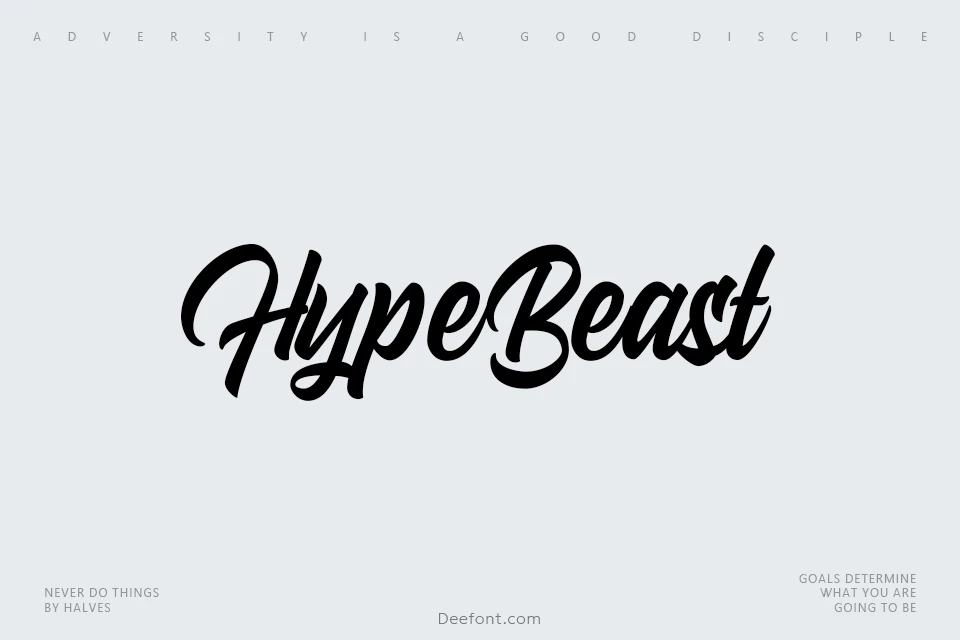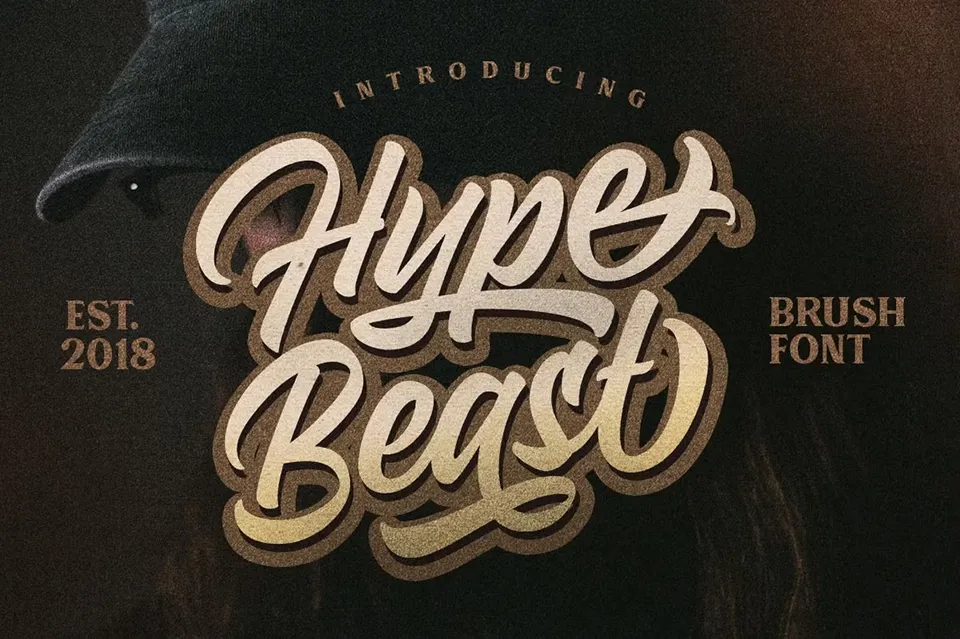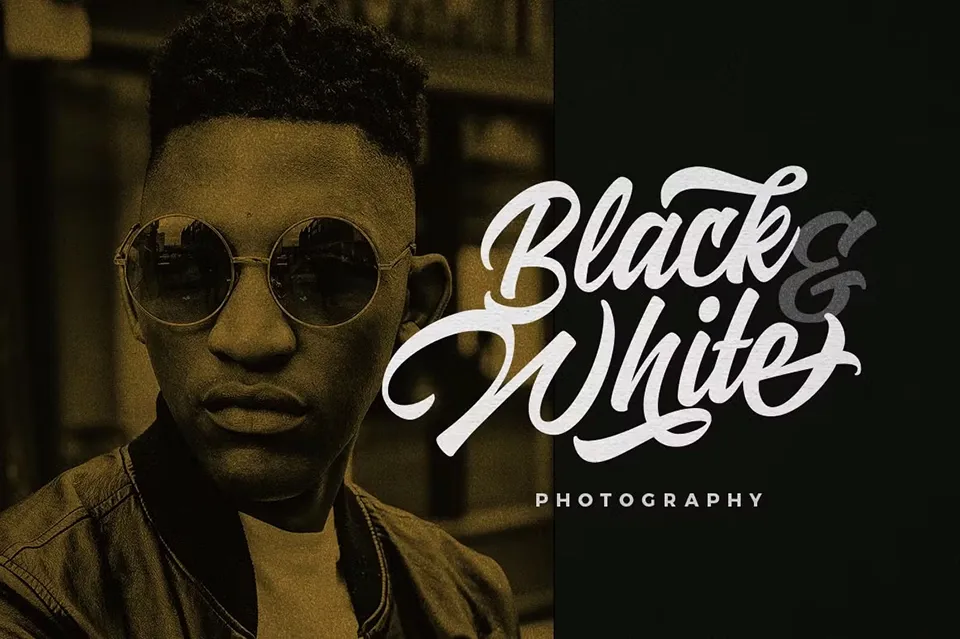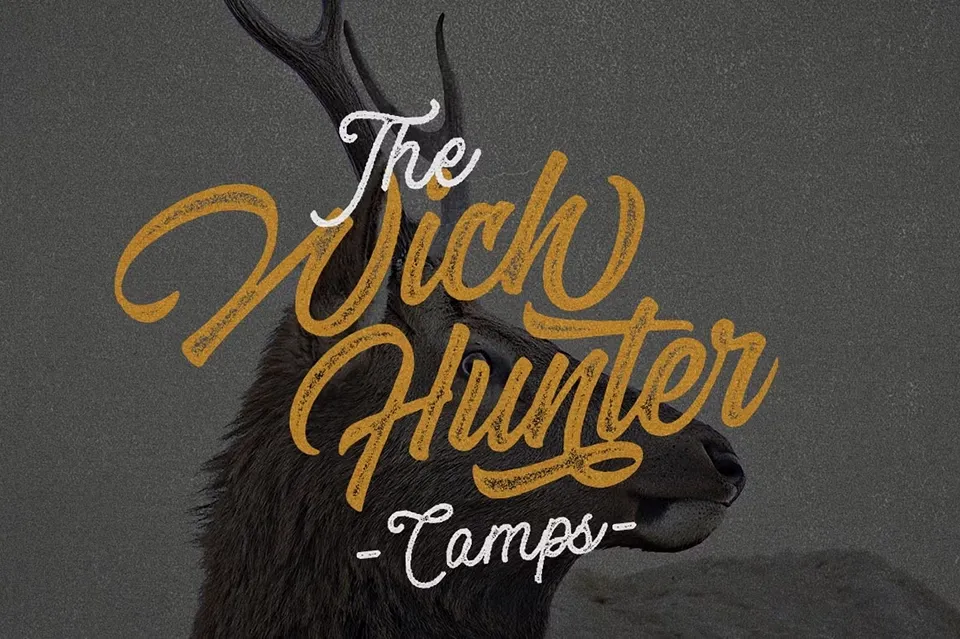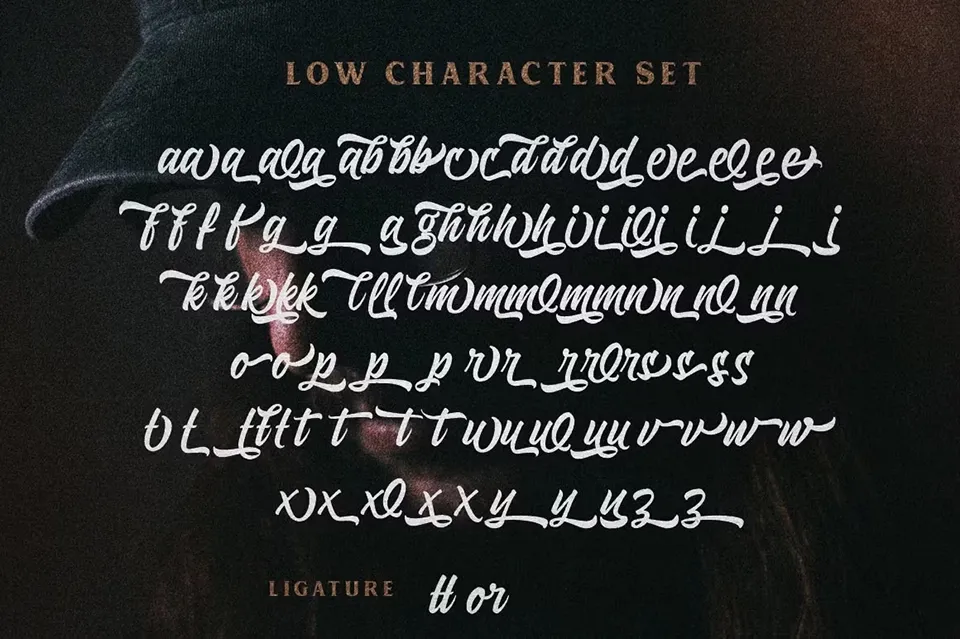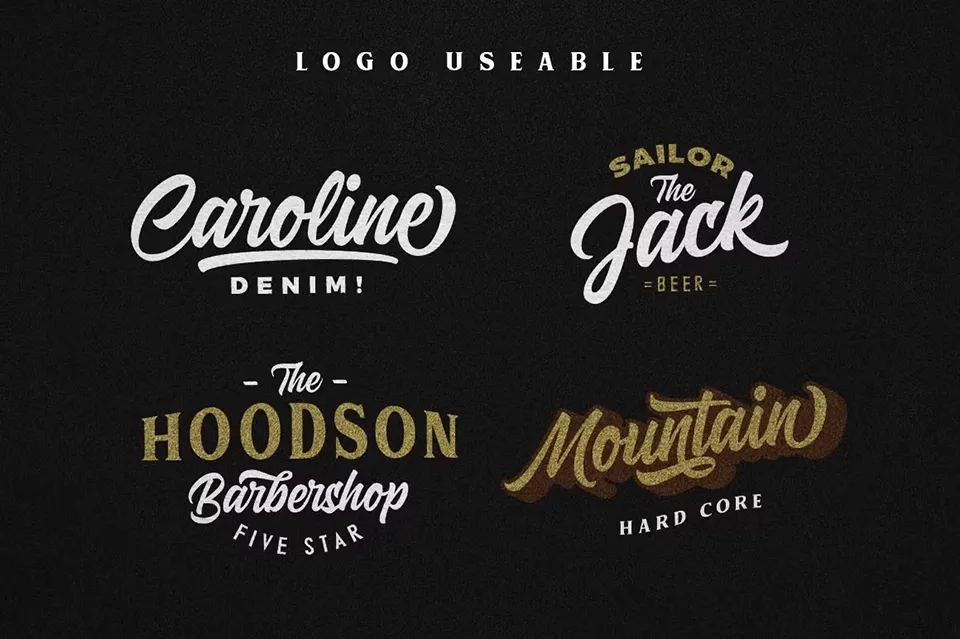
Hypebeast Script Font
The Hypebeast Script Font is a bold, energetic brush script inspired by contemporary fashion, streetwear, and hand lettering. Every curve is crafted with personality, featuring a bouncy baseline and a dynamic flow that brings a lively, urban touch to your designs. Ideal for logos, handwritten quotes, product packaging, headers, posters, merchandise, social media, and greeting cards, it also comes with a complimentary marker font and a handy set of bonus swashes for added versatility and style.